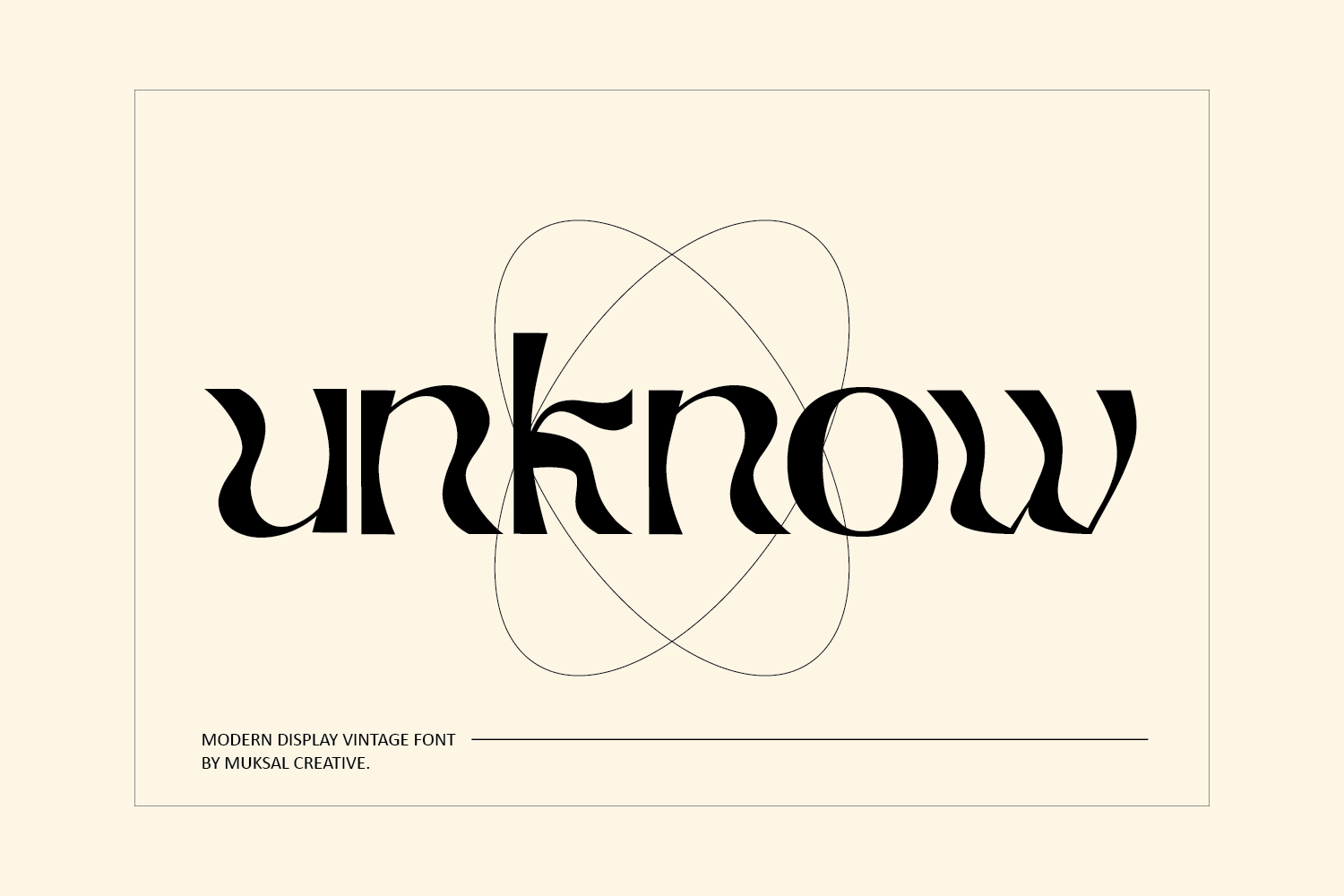
Unknow Free Font
Unknow Free Font is a very versatile font that works great in large and small sizes. Perfect for editorial projects, Logo design, Clothing Branding, product packaging, magazine headers, or simply as a stylish text overlay to any background image. This free typeface was designed by a talented Muksal mina. If you like it don’t forget to check out the full version.